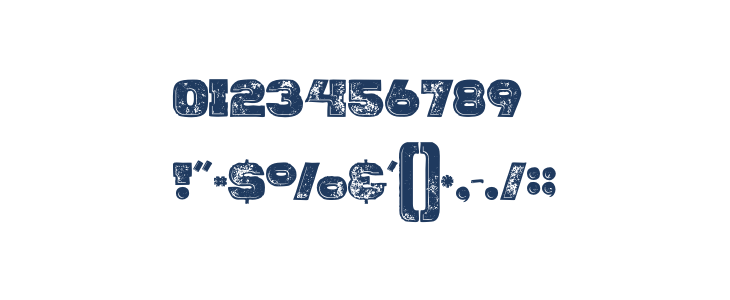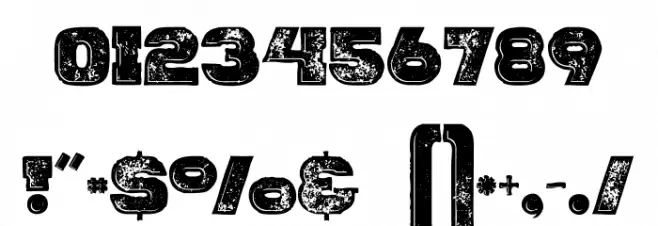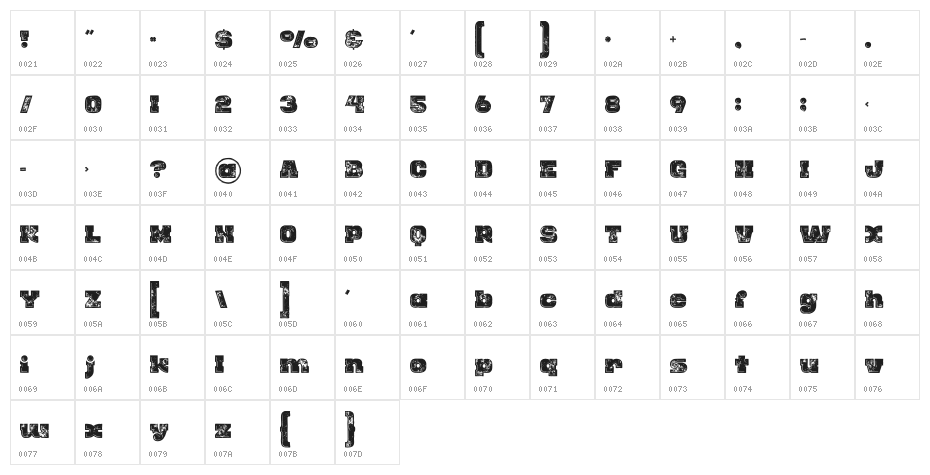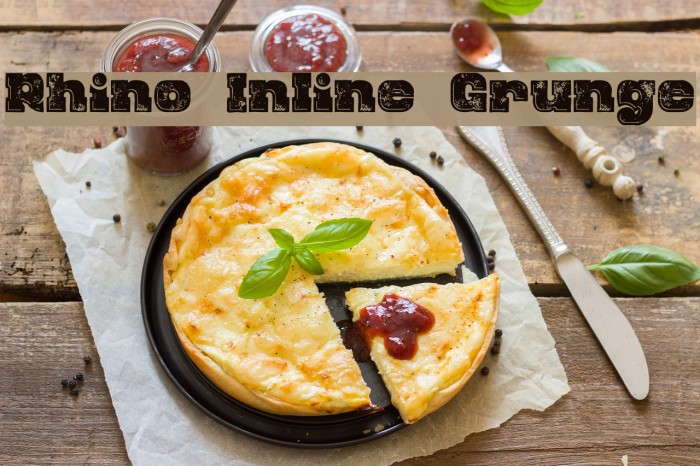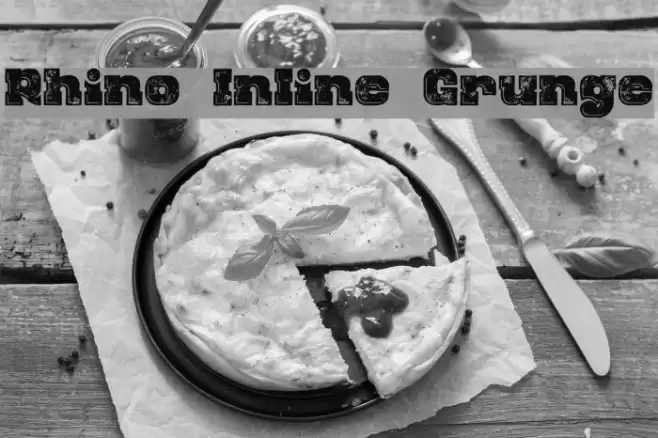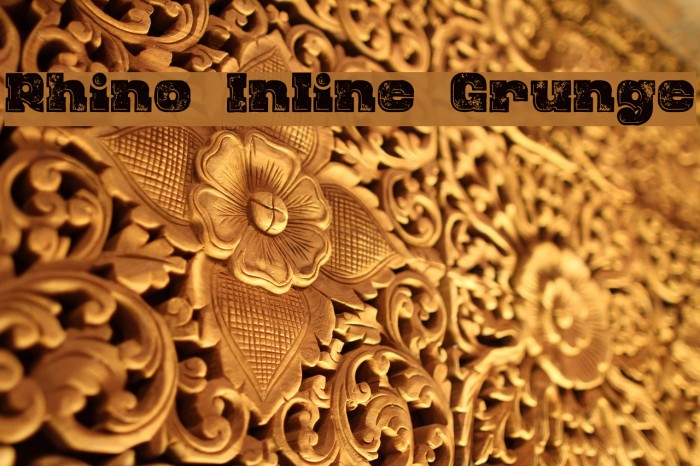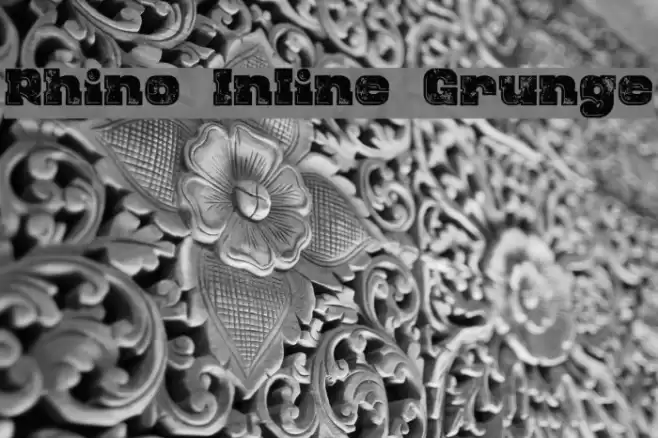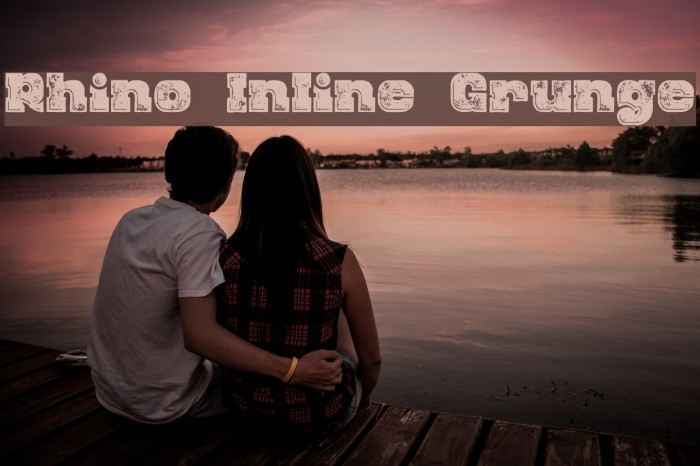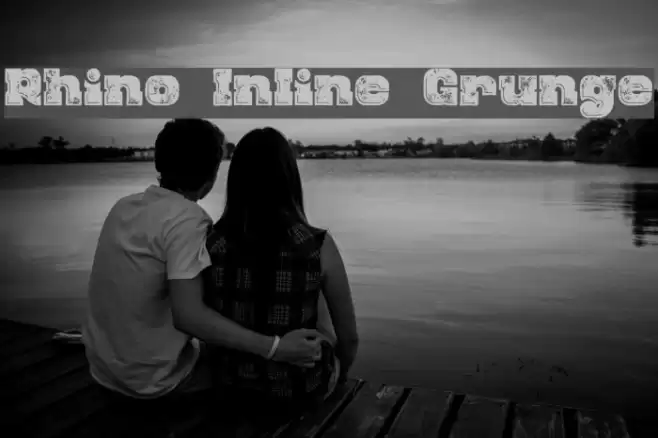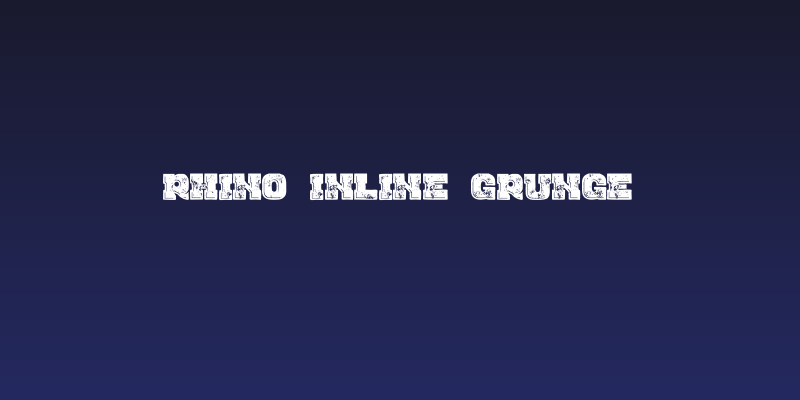
Rhino Inline Grunge Font
Rhino Inline Grunge Description
This font features a bold, distressed style with an inline design that gives it a rugged, grunge appearance. The characters are heavily textured, creating a worn and weathered look that adds depth and character. The uppercase and lowercase letters maintain a consistent weight, while the numbers and special characters follow the same distressed aesthetic. The font's unique style makes it stand out, with a bold presence that captures attention. The inline detail adds an extra layer of complexity, making it suitable for designs that require a strong, impactful visual element.
| Overall Style | Grunge, Decorative |
| Proposed Projects | Ideal for music album covers, posters, urban-themed designs, and branding that requires a gritty, bold look. |